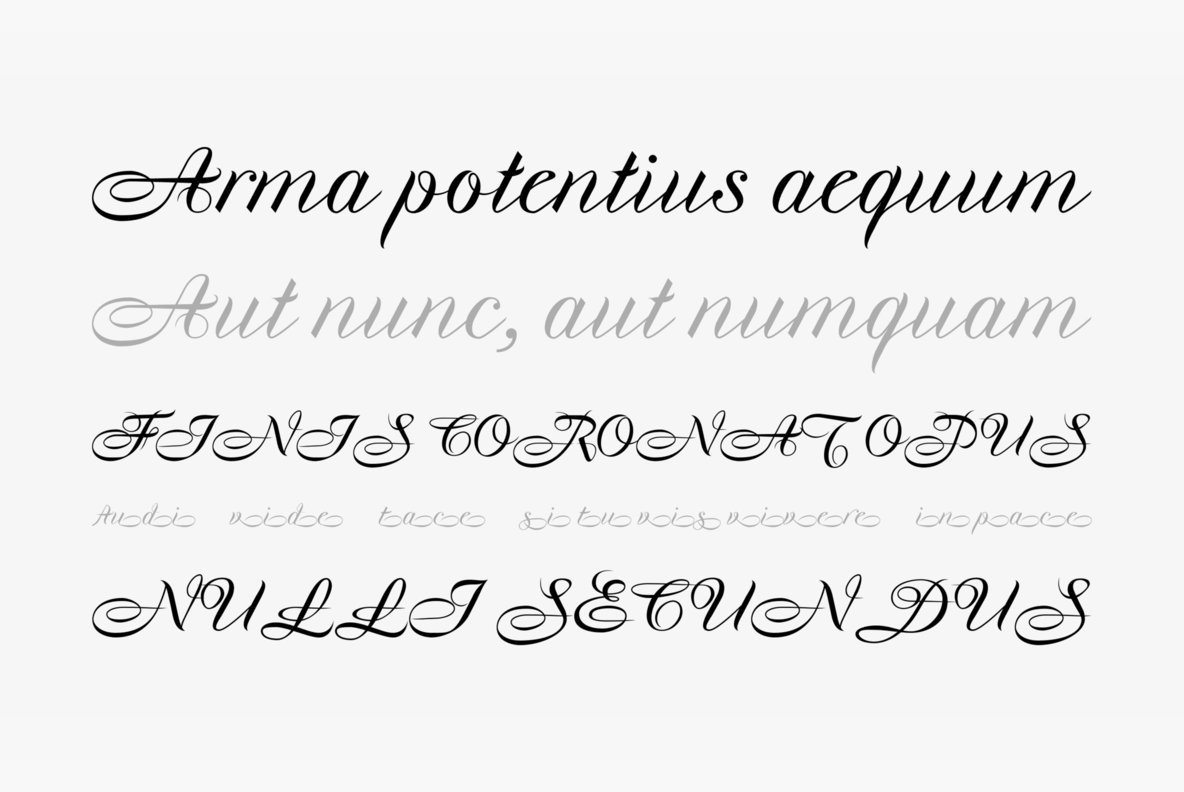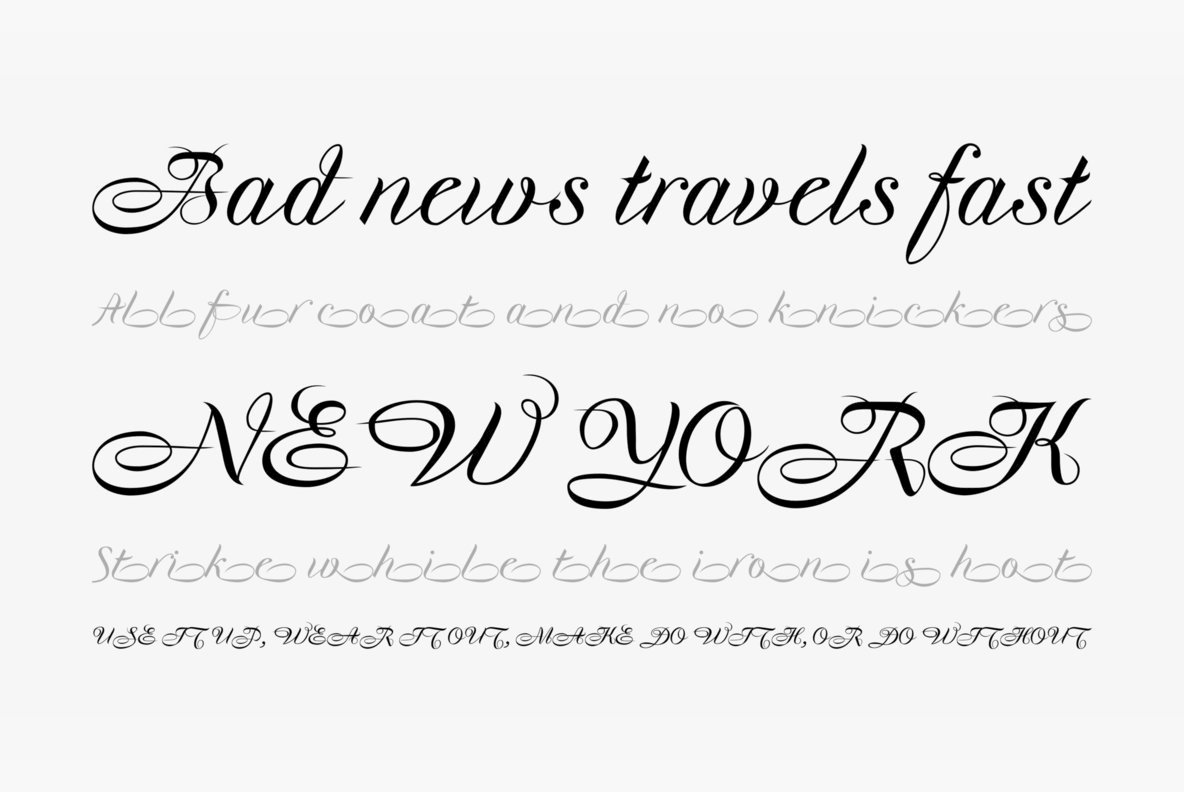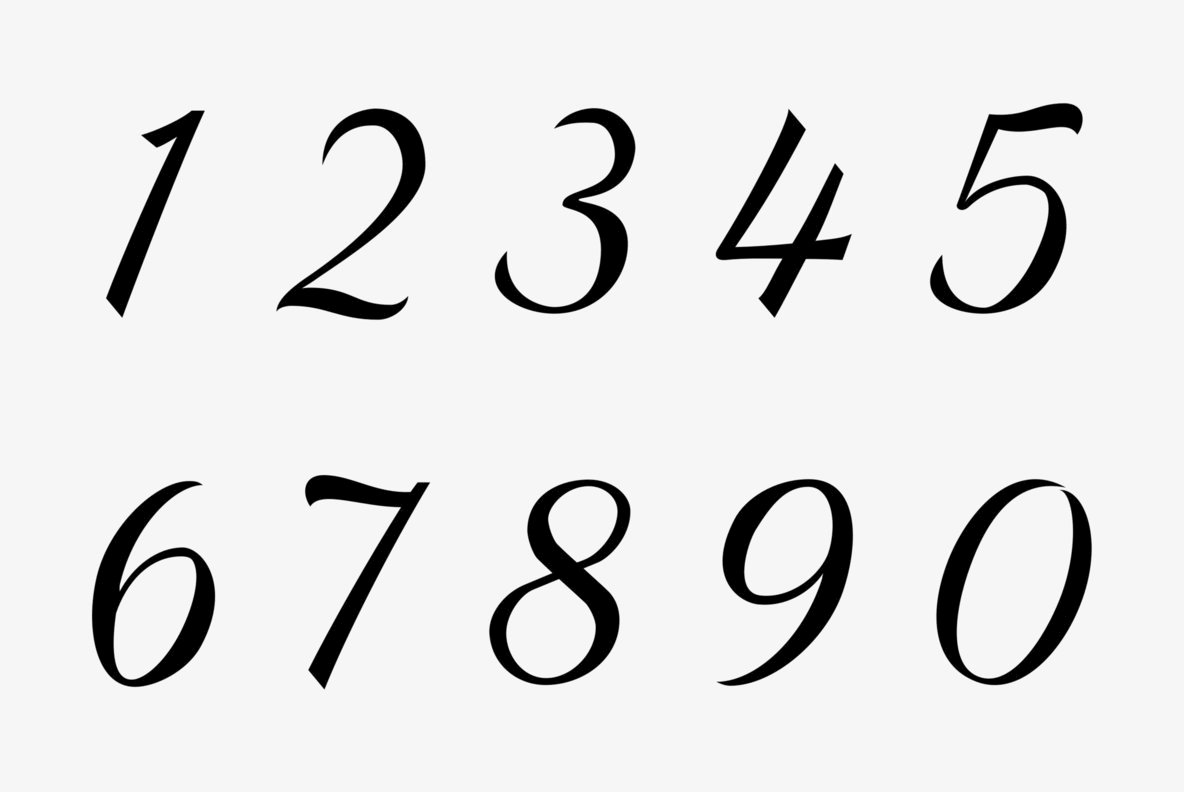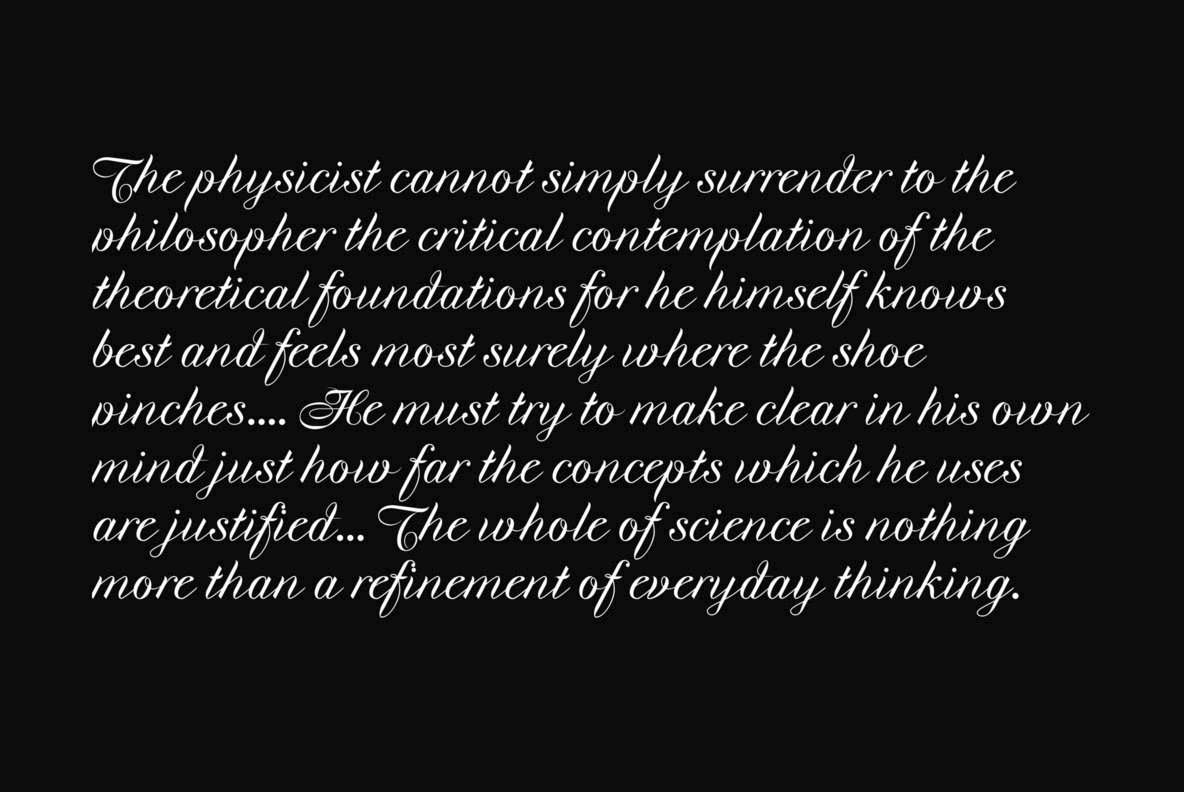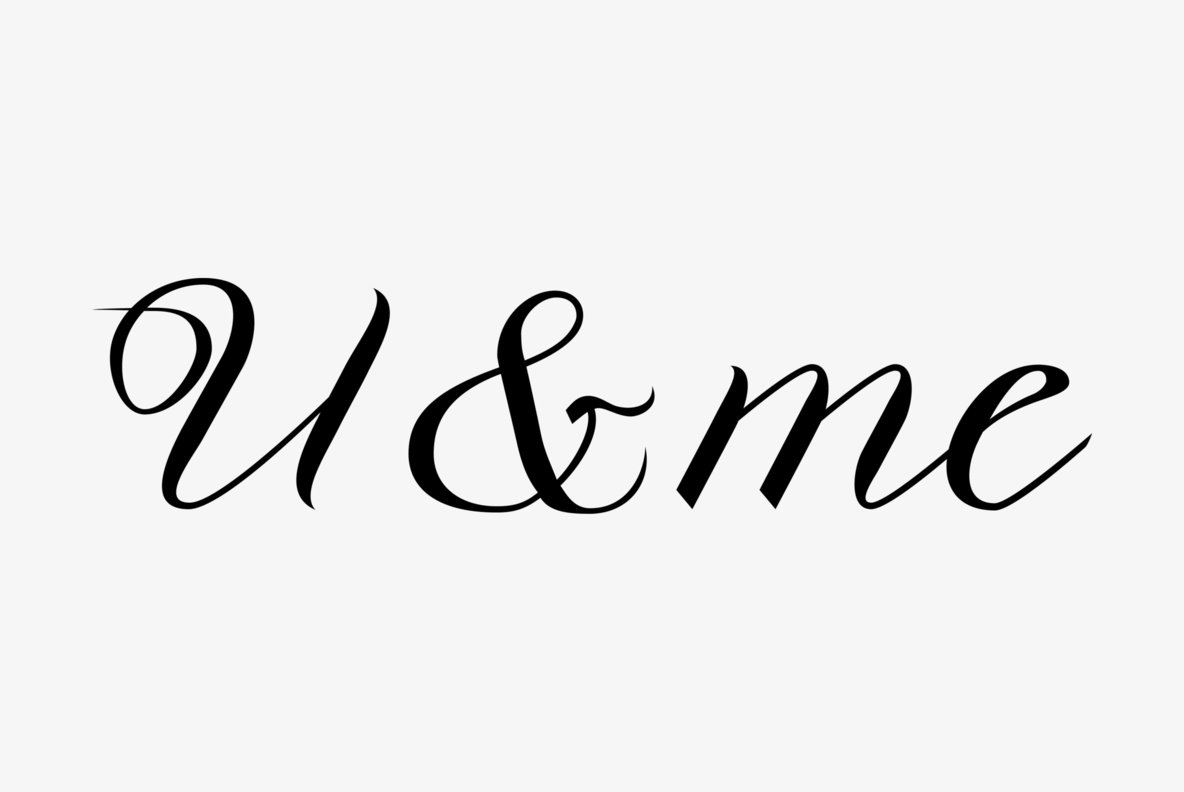
Artegio Font
"Artegio" is an elegant, joining, classical script with impressive horizontal swirls. I designed an comlementary set with simpler capitals, lower-case ending letters and medieval ciphers.